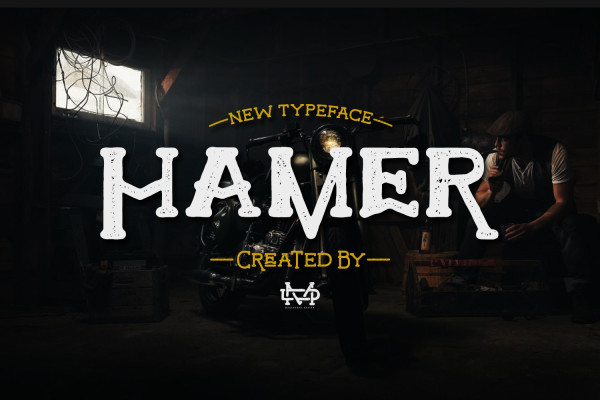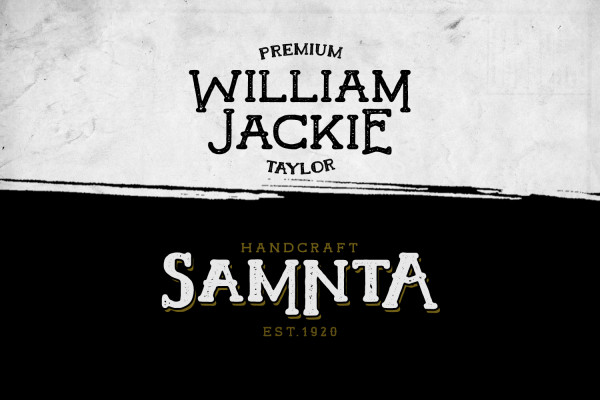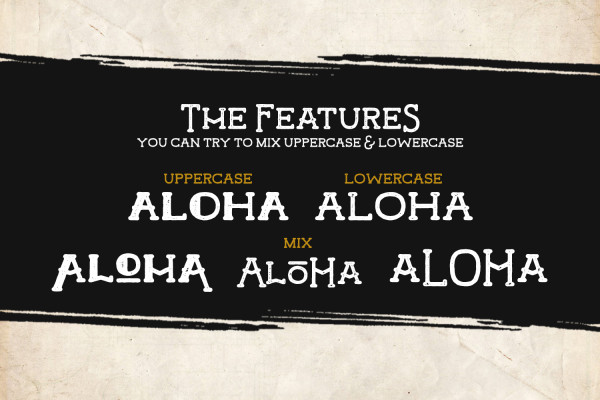
Hamer Font
Hamer Font is a unique and interesting display font. Incredibly versatile, this font will fit a wide pool of designs.
Fall in love with its incredibly stylish look and use it to create spectacular designs!
Designer Name: madeDeduk